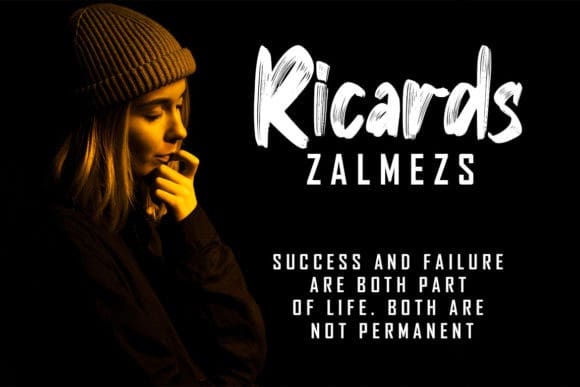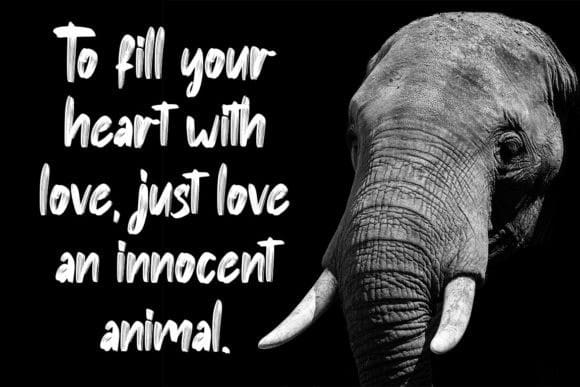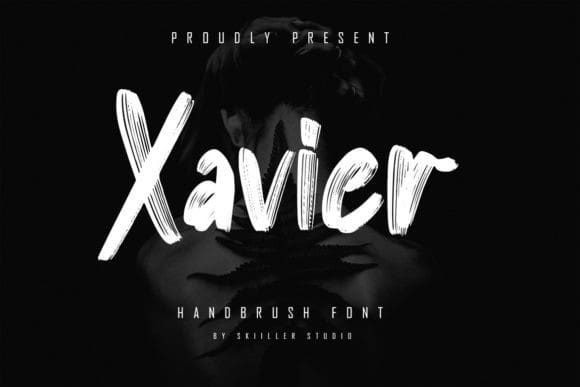
Xavier Brush Font
Xavier Brush Font is a cool, brushed display font. This adaptable font will look great on a variety of design ideas. It will add a fun and friendly touch to each of your projects!